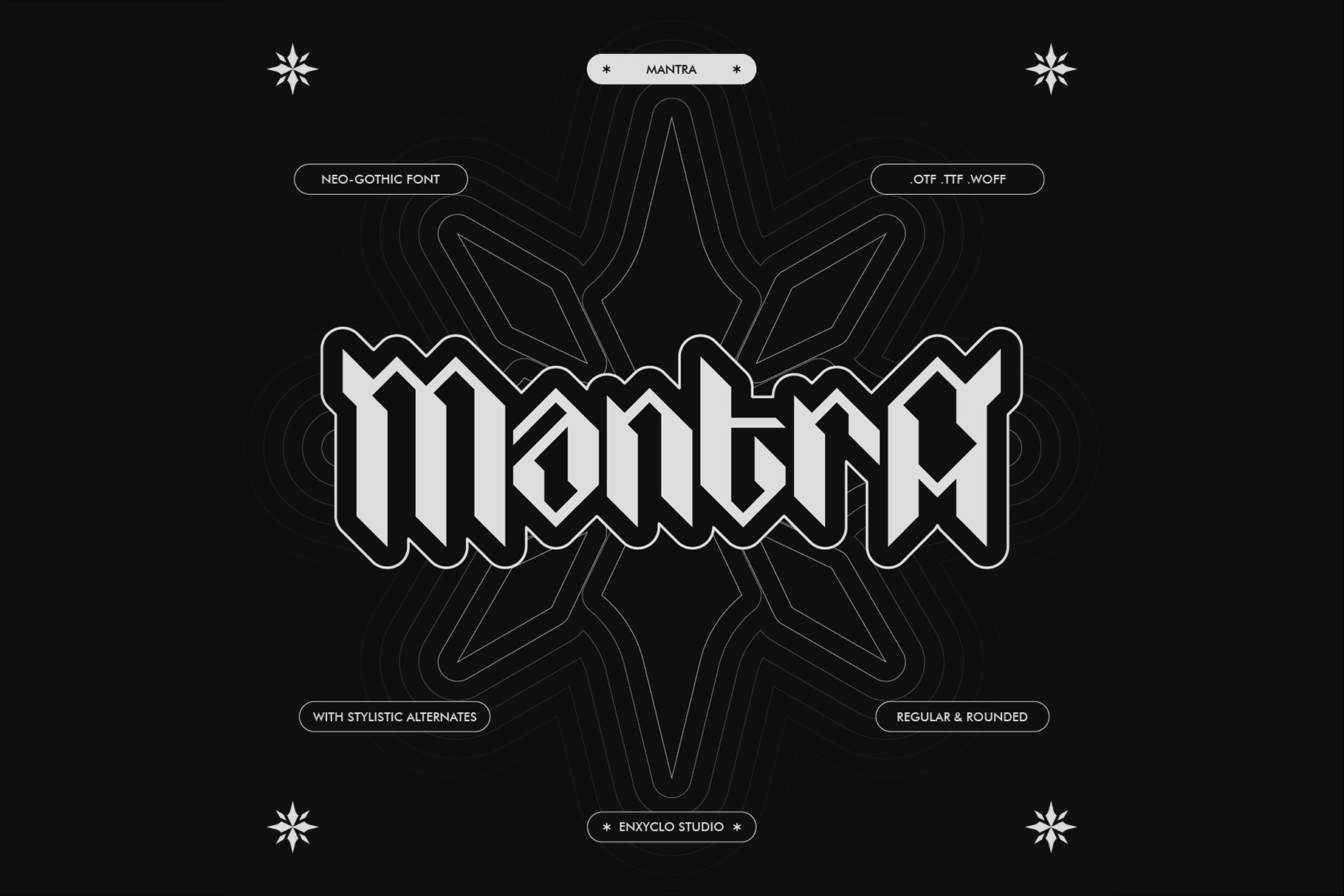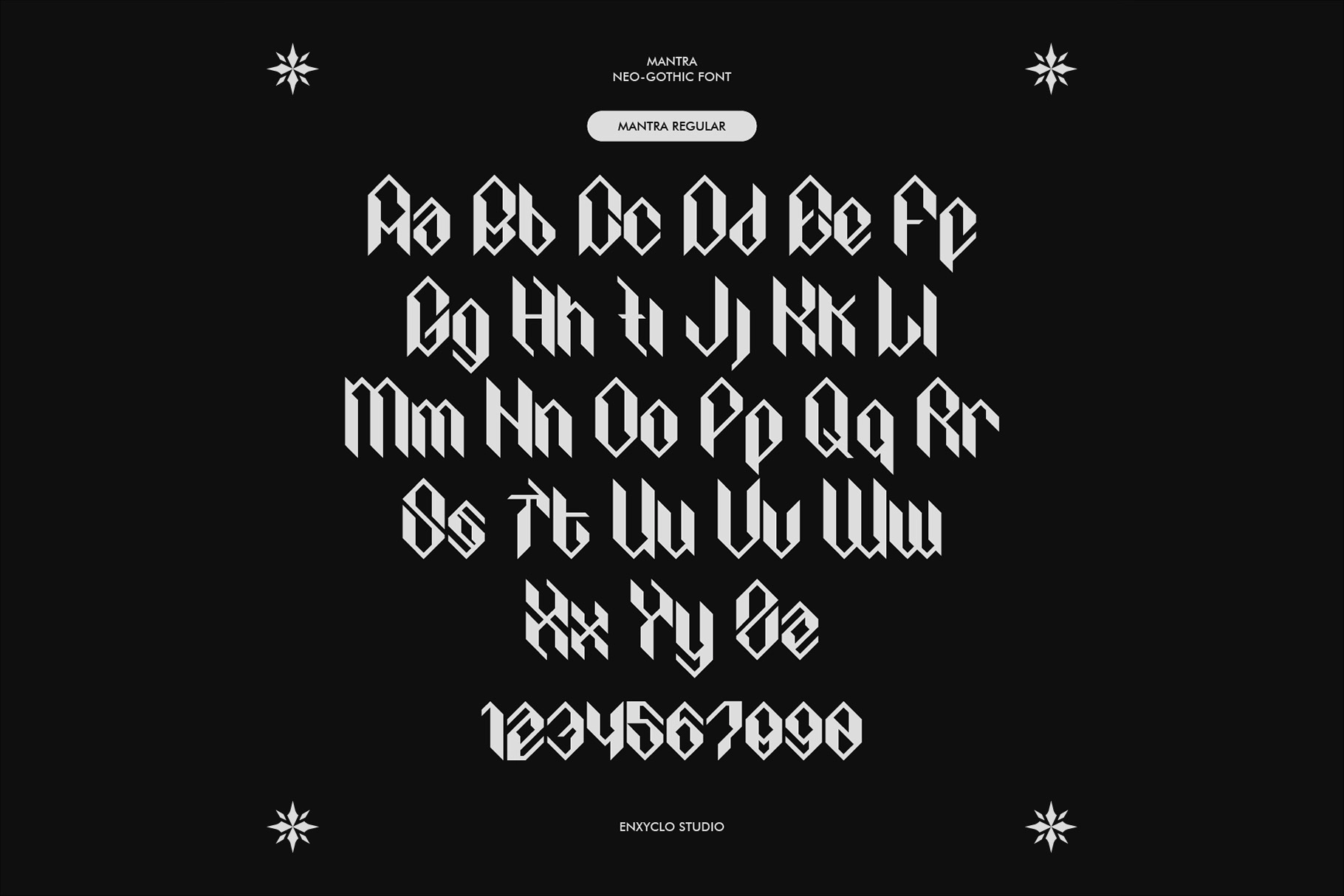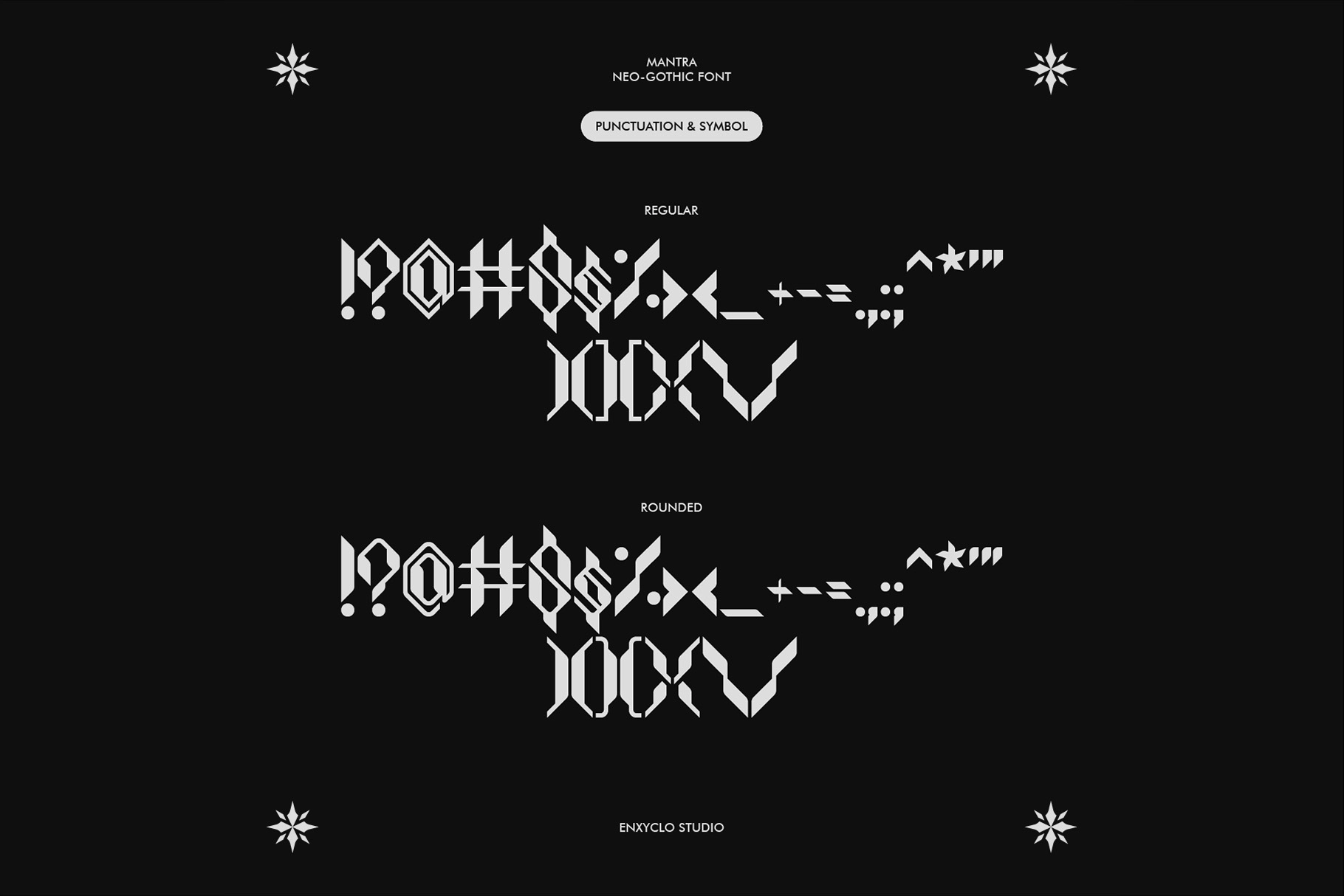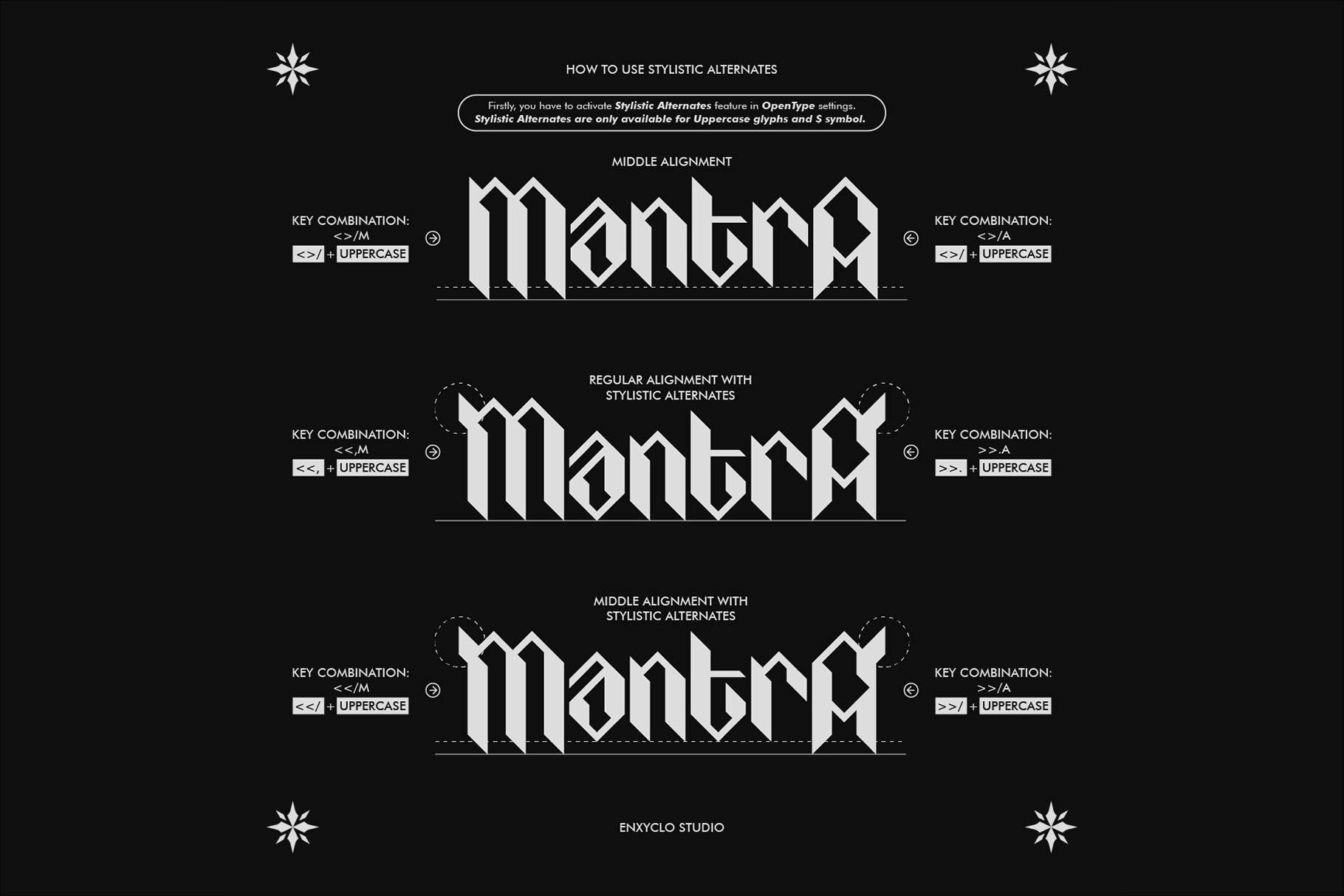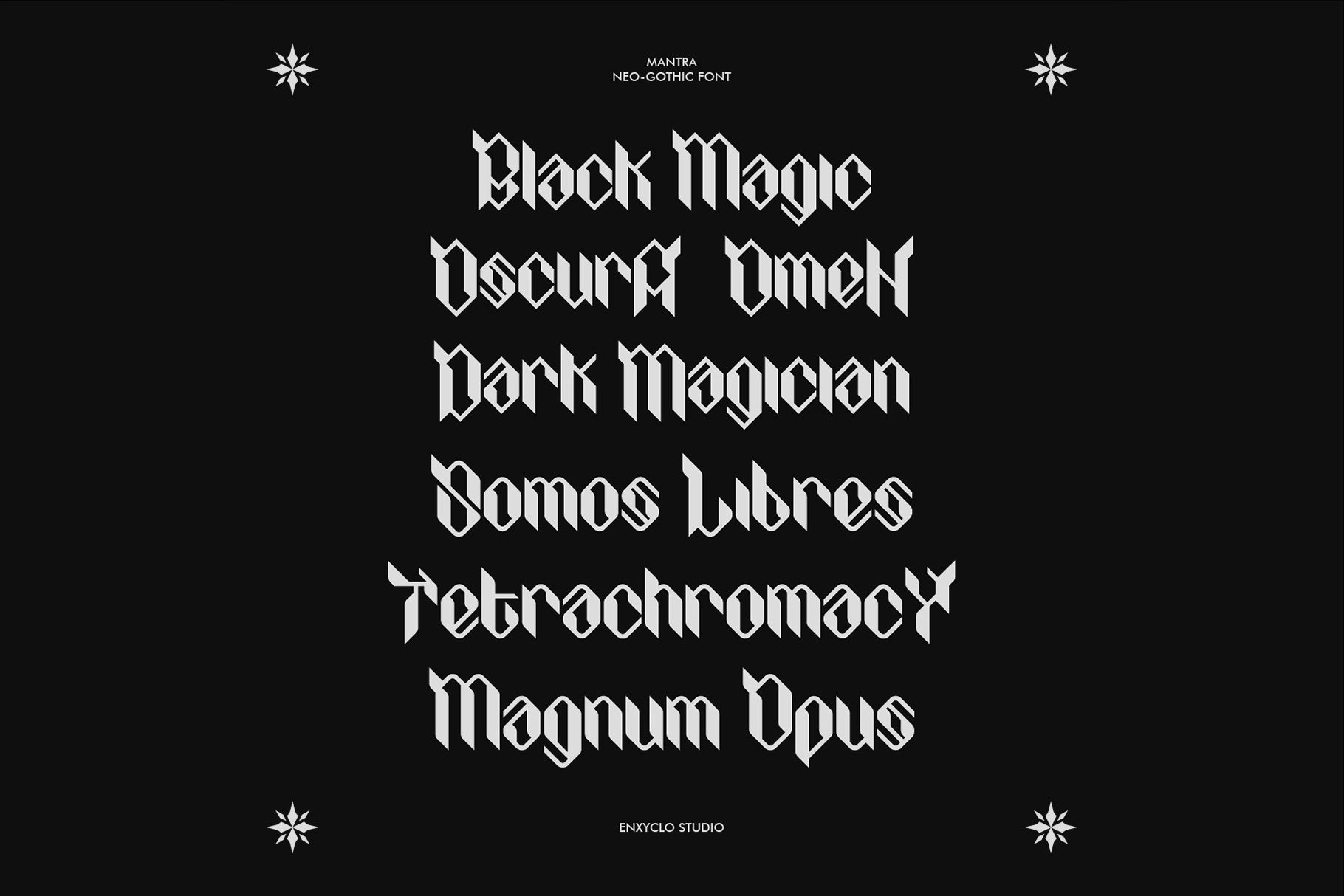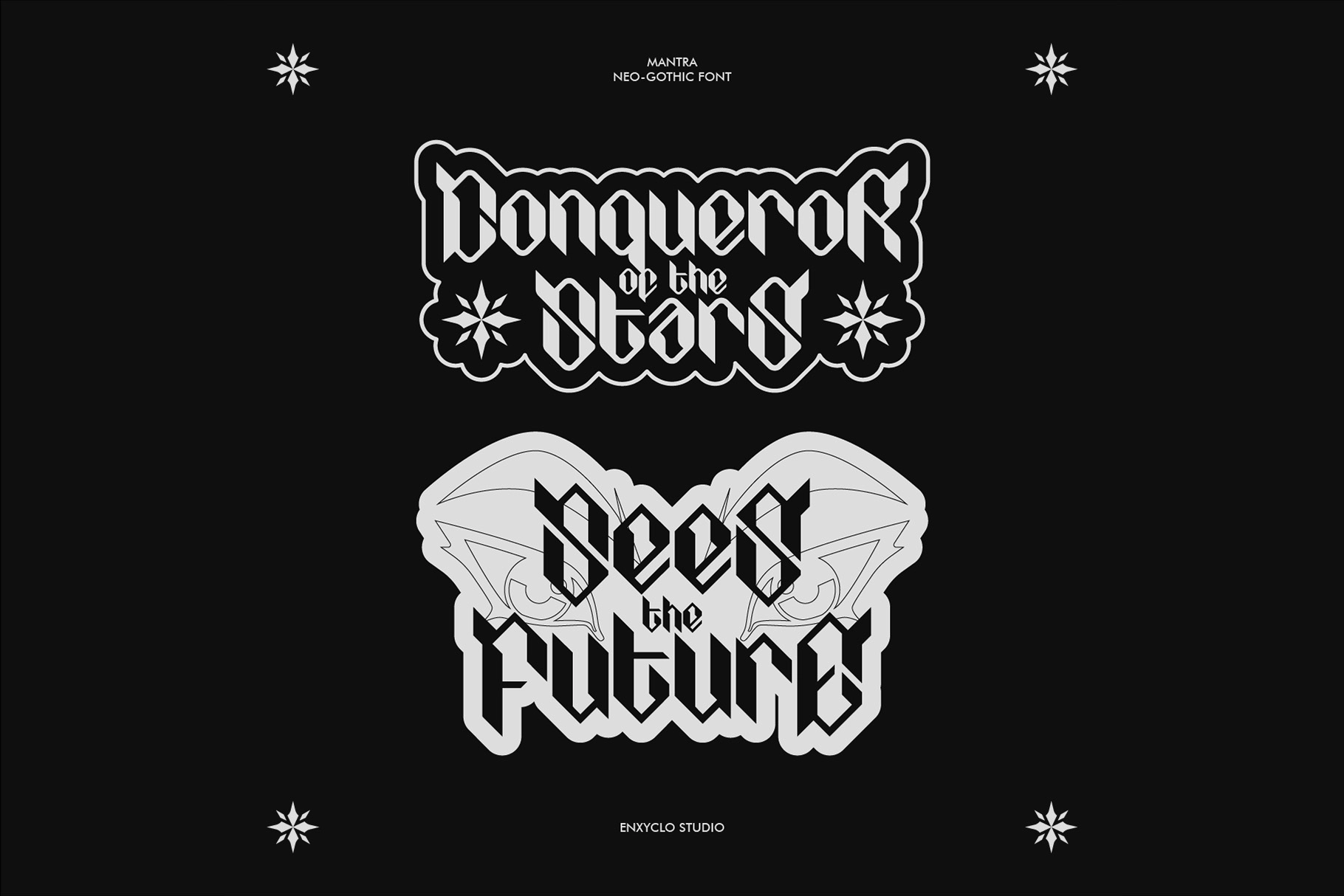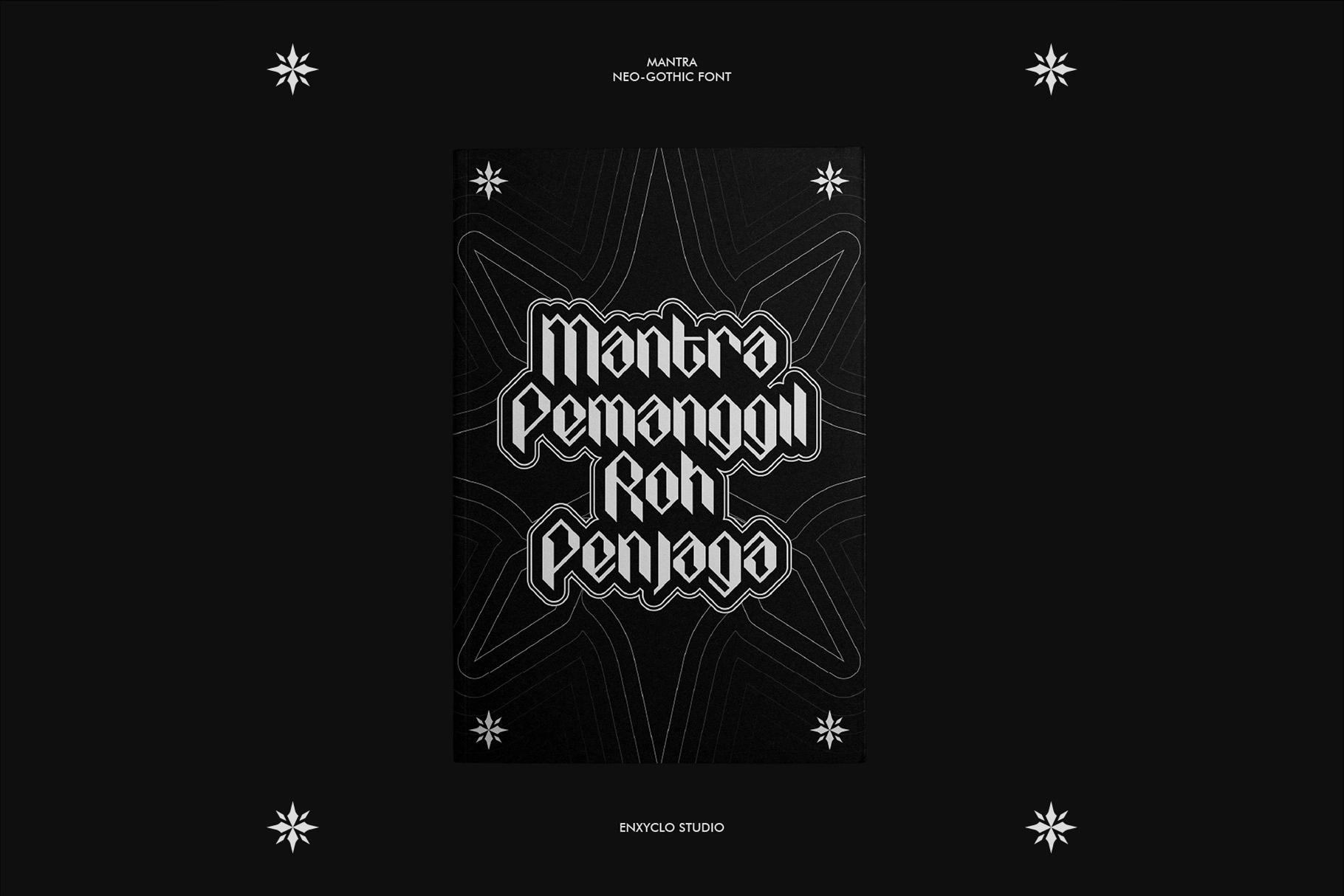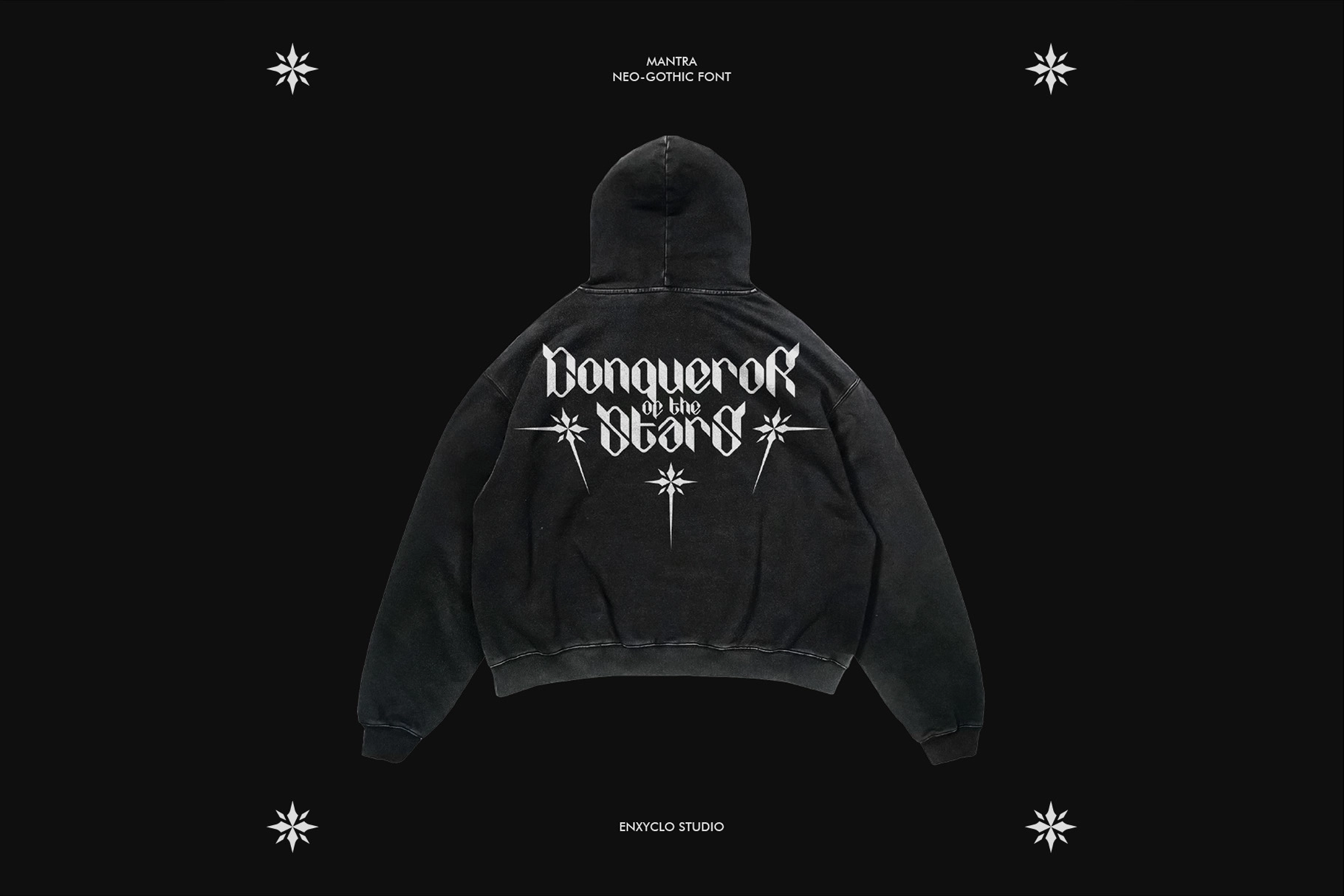
Mantra
Rounded
Mantra is neo gothic font. It is modern blackletter combined with futuristic style. Available in regular and rounded style with stylistic alternates feature for uppercase. Masterfully designed to become a true favorite, this font has the potential to bring each of your creative ideas to the highest level! It was purposely crafted to be used in large point sizes, although it doesn’t lose its magic in small point sizes.
- Available in Regular and Rounded Style
- Contains 226 Glyphs for Regular / Rounded Style
- Uppercase, Lowercase & Numeral
- Punctuation & Symbol